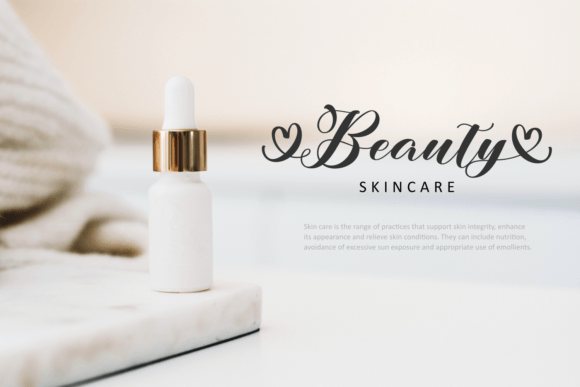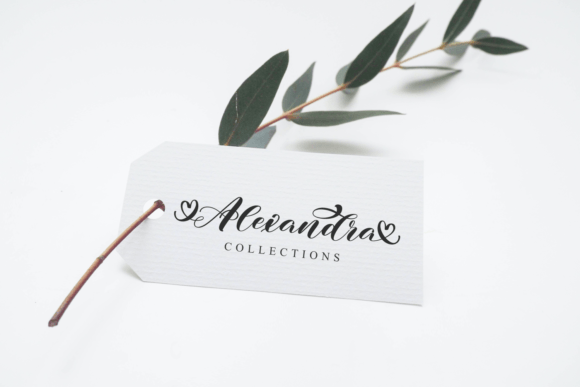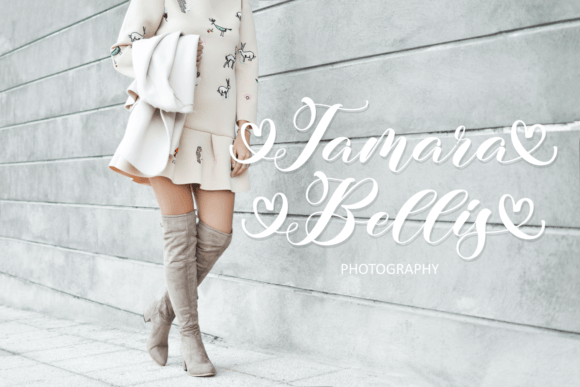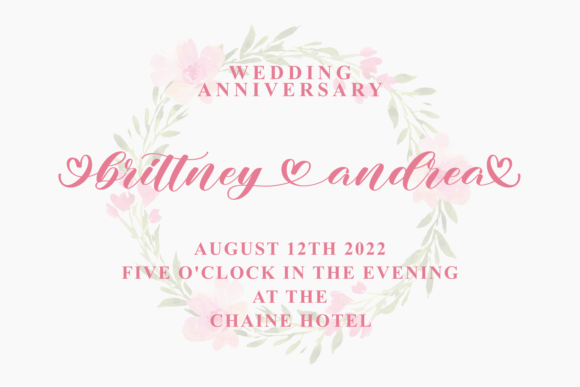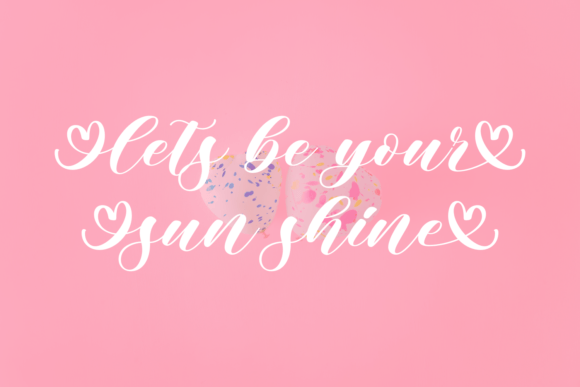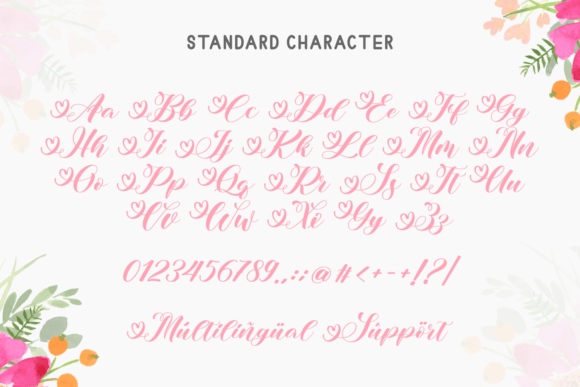
The Ultimate Design Companion: Dreamhearts Font
Have you ever stared at a blank page, struggling to find the perfect font to bring your creative vision to life? We’ve all been there – the cursor blinks, the ideas swirl, and the frustration sets in. But what if you had a secret weapon, a trusty sidekick that could elevate your designs and make them truly unforgettable?
Enter Dreamhearts Font, a gorgeous handwritten font that adds a touch of sweetness and sophistication to any project. Whether you’re crafting a logo, designing a label, or creating a website, Dreamhearts Font is the perfect addition to make your designs stand out. With its classy style and versatility, this font is a must-have for designers looking to add a personal touch to their work.
Dreamhearts Font Key Features
- Font Size: The font comes in 6 font sizes, ranging from 12 points to 72 points, allowing designers to choose the perfect size for their projects.
- Resolution: Dreamhearts Font is designed to work at resolutions up to 300 DPI, making it suitable for both digital and print applications.
- Unique Characteristics: The font features a unique, hand-drawn design with subtle irregularities, giving it a distinctive and charming feel. The font also includes a range of swashes and flourishes, adding to its creative potential.
- Character Set: Dreamhearts Font includes a comprehensive character set, covering a wide range of languages, including Latin, Cyrillic, and Greek alphabets.
- Font Weight: The font comes in 3 weights: Light, Regular, and Bold, allowing designers to choose the perfect weight for their project.
Dreamhearts Font Review
I recently had the chance to work with the Dreamhearts font, and I must say it’s a unique addition to any design project. ✨ The elegant, handwritten style adds a touch of sophistication and romance to text, making it perfect for wedding invitations, birthday cards, or any other occasion where you want to convey a sense of love and connection.
One of the standout features of the Dreamhearts font is its versatility. ✨ It can be used for a wide range of applications, from headings and titles to body text, and even for creative projects like logos and branding. The font also comes in multiple weights and styles, allowing you to customize it to fit your specific needs.
- ⚠️ May not be suitable for body text in smaller font sizes due to its cursive nature
- ⚠️ Limited language support, which may be a concern for designers working on multilingual projects
- ⚠️ Some characters may not display correctly in certain operating systems or software
Overall, I’m impressed with the Dreamhearts font. While it may have some limitations, its unique style and versatility make it a great addition to any designer’s toolkit. With a little creativity and experimentation, I’m confident that you can achieve stunning results with this font.
Practical Application Guide for Dreamhearts Font
Tip: Use the Dreamhearts Font to add a touch of whimsy to your social media graphics, blog posts, or marketing materials.
Tip: Experiment with the Dreamhearts Font in combination with other creative assets to create unique and eye-catching designs.
Tip: Use the Dreamhearts Font to add a touch of personality to your presentations, reports, or resumes.
The Dreamhearts Font is ideal for:
- Social media graphics and blog posts
- Marketing materials and branding
- Presentations and reports
- Hand-drawn or custom typography projects
- Watercolor textures to create a soft, ethereal look.
- Gold or silver foils to add a touch of luxury.
- Whimsical illustrations of flowers, clouds, or other dreamy elements.
- Geometric patterns to create a modern, eclectic look.